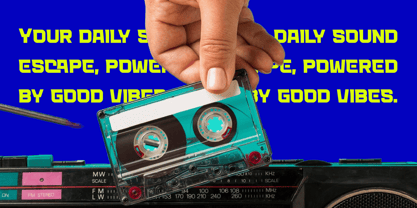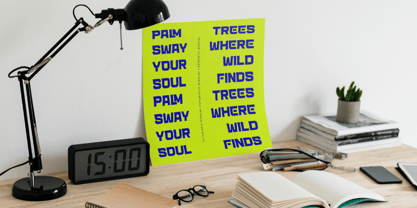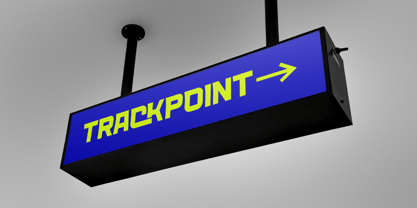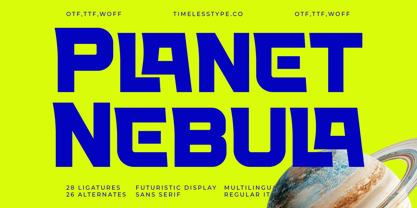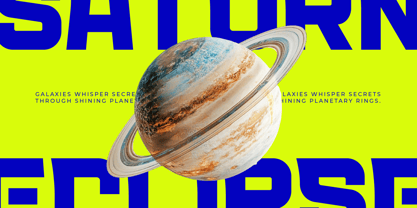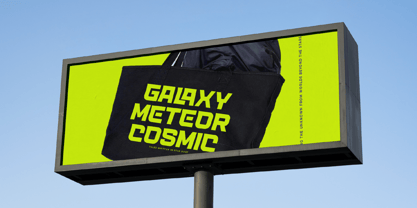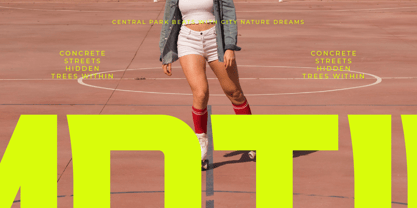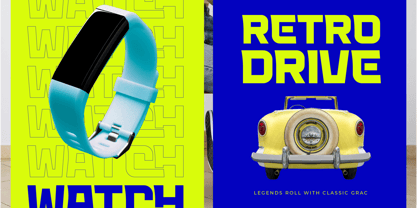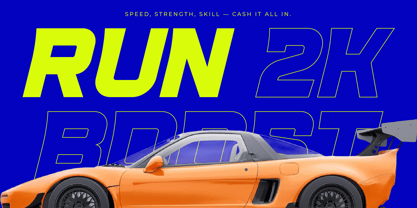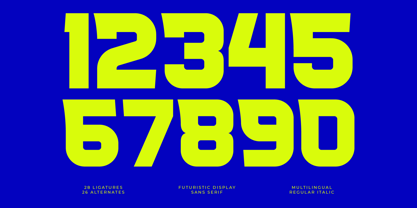
Planet Nebula
by Timelesstype Studio
The Planet Nebula Font Family was designed by Heru Utama Putra and published by Timelesstype Studio. Planet Nebula contains 2 styles and family package options. More about this family
Planet Nebula - Futuristic Display Sans Serif , from Timelesstype , Suitable for any projects such as: logos, branding projects, homeware designs, product packaging, mugs, quotes, posters, shopping bags, t-shirts, book covers, name card, invitation cards, greeting cards, label, photography, watermark, special events, and all your other luxury and beautiful projects that need a Luxury Serif taste.